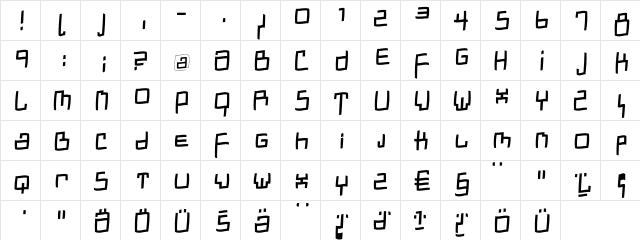
DadasTracesFreeshapes Regular
Design Context for DadasTracesFreeshapes Typeface
DadasTracesFreeshapes is a composed and adaptable typeface that performs quietly and consistently across a wide range of design contexts.